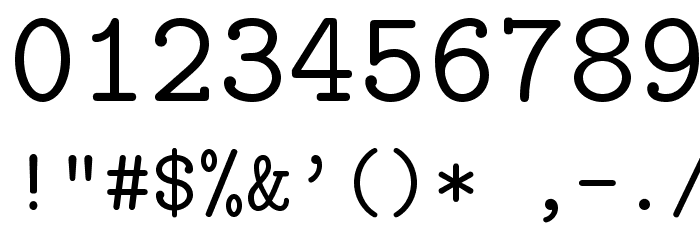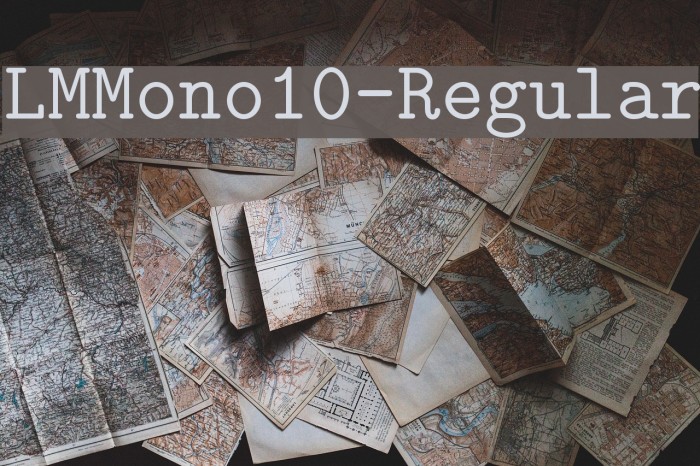
LMMono10-Regular Font
This typeface is a monospaced font characterized by its uniform spacing and classic typewriter aesthetic. Each character occupies the same amount of horizontal space, providing a clean and organized appearance. The font features a slab serif style with distinct, block-like serifs that enhance readability and give it a robust, mechanical feel. The uppercase letters are bold and commanding, while the lowercase letters maintain a consistent structure that complements the overall design. Numbers and special characters are clearly defined, making this font suitable for coding, tabular data, and any application where alignment is crucial. Its simplicity and clarity make it a versatile choice for various design projects.
A monospaced slab serif font with a classic typewriter style.
- Proposed Projects: Ideal for coding environments, technical documents, and retro-themed designs.
- Overall Style: Classic
- Use Case: Coding, Technical documents, Retro designs